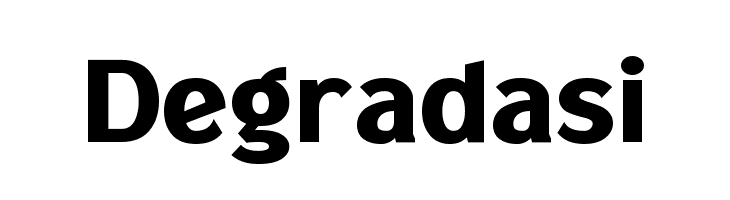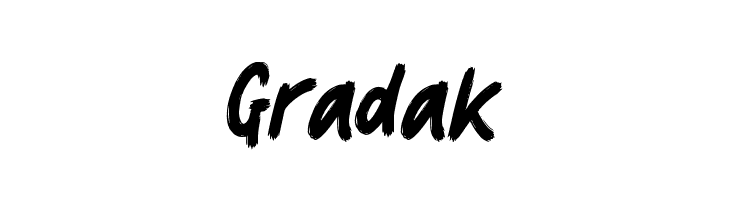
A bold, geometric font with angular lines and a modern, futuristic style.
A sophisticated cursive script font with a signature-like flow and dynamic strokes.
A playful, casual handwritten font with smooth, flowing lines.
A modern, bold sans-serif font with a clean and slightly condensed style.
A bold, modern sans-serif font with clean lines and a strong presence.
A bold, playful font with an irregular, splattered texture.
A bold, high-contrast serif font with a classic yet modern style.
A bold, angular font with a three-dimensional, futuristic design.
A bold, brush-style font with dynamic, hand-painted strokes.
A playful, handwritten font with tall, narrow letters and a whimsical style.